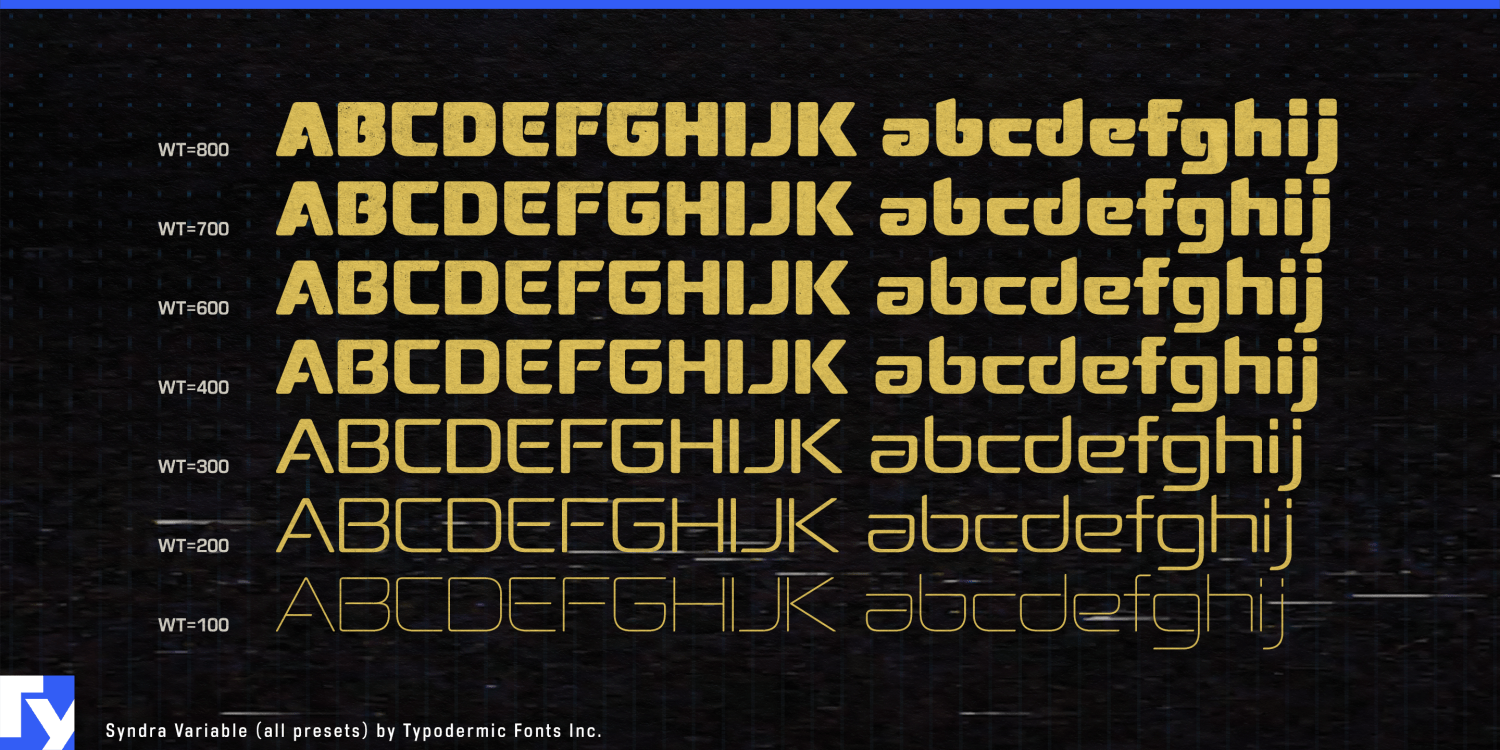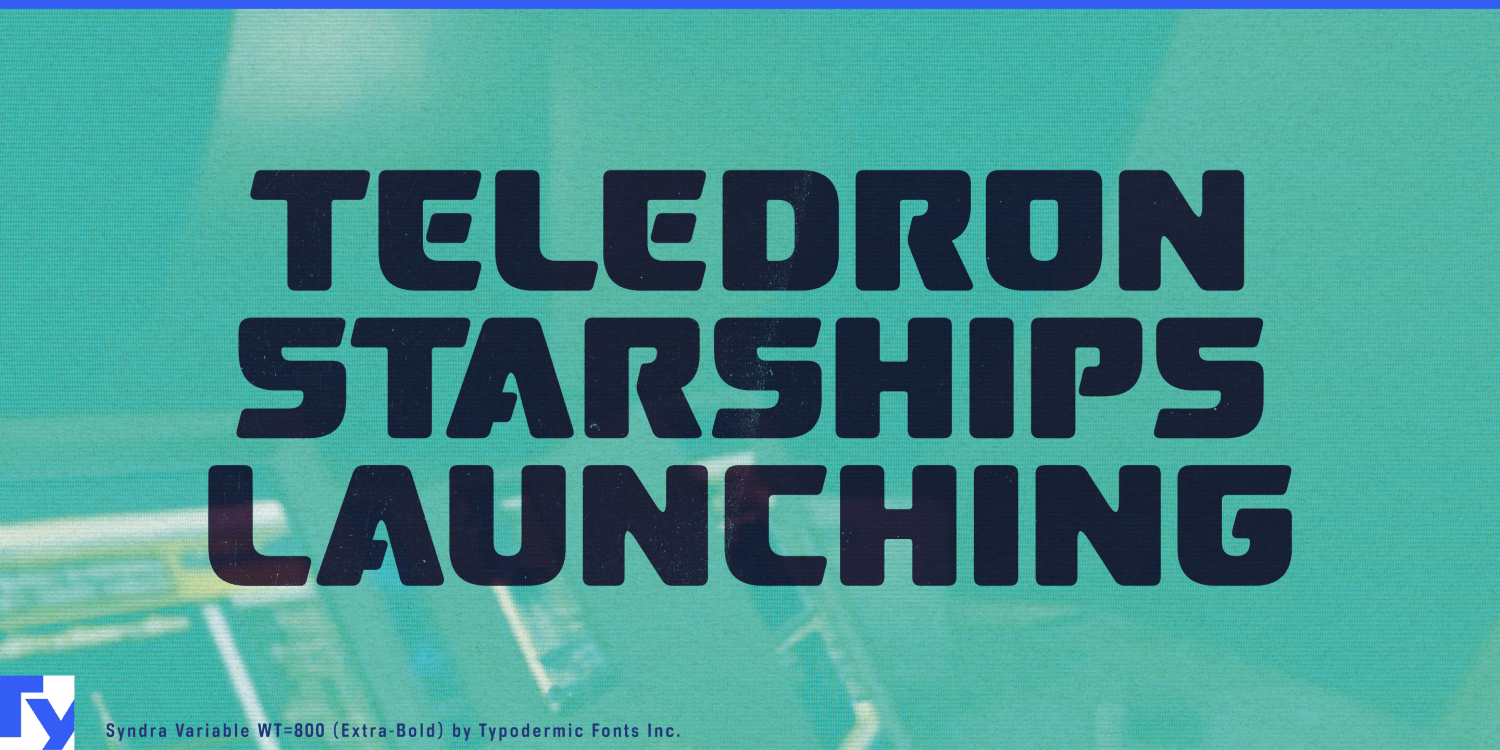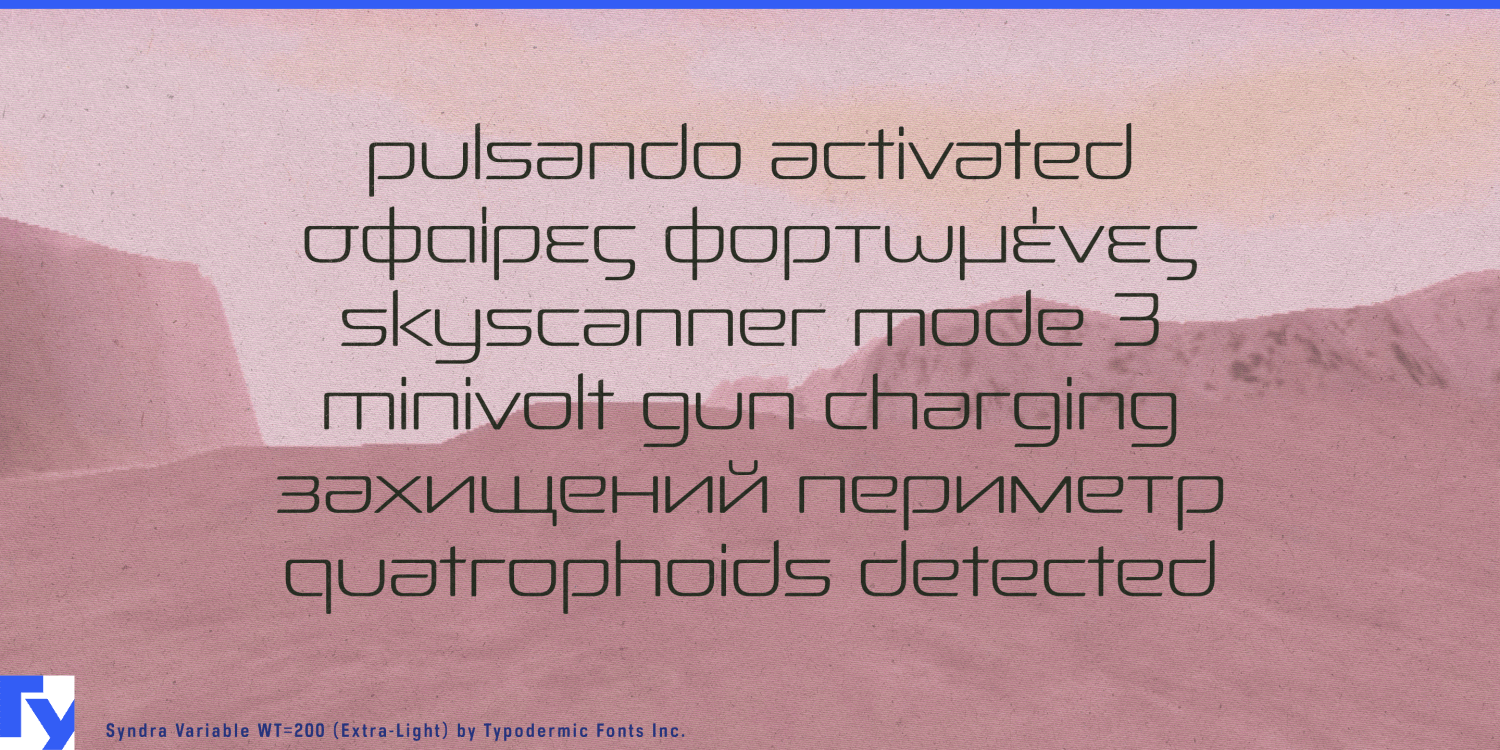
About Syndra Variable
Syndra Variable is a typographic quantum leap. This cutting-edge typeface harnesses the power of variable font technology to propel your designs into a future where flexibility meets precision with algorithmic grace. Born from the Y2K aesthetic but engineered…